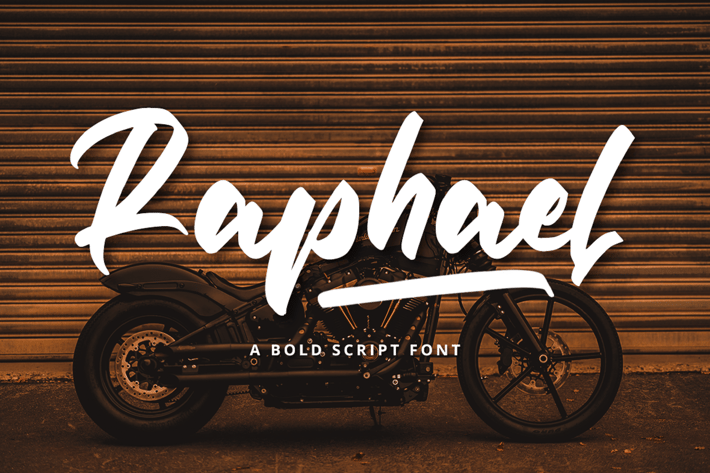
Bold Script Font
“Creativity is the intelligence having fun” - Albert Einstein. Are you seeking a creative way to express your designs in quaint handwriting? If so, you’ve found your perfect font.
Adorn your presentations, designs, postcards, and anything in between with this personal and sophisticated Raphael Bold Script font.
This awesome font has multilingual support, a “tt” ligature, numerals, and punctuation marks.
Multilingual & Ligature Support
Full sets of Punctuation and Numerals